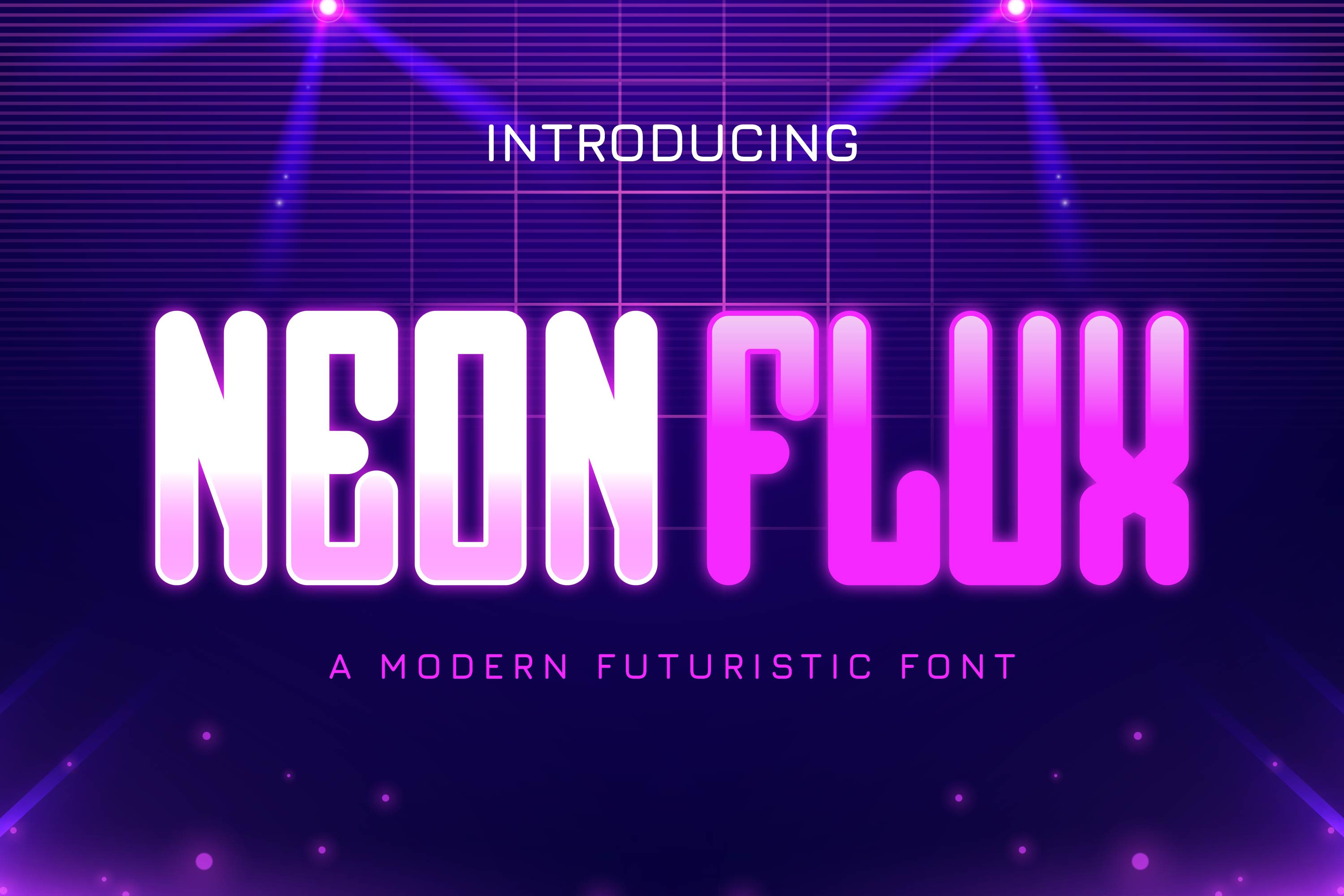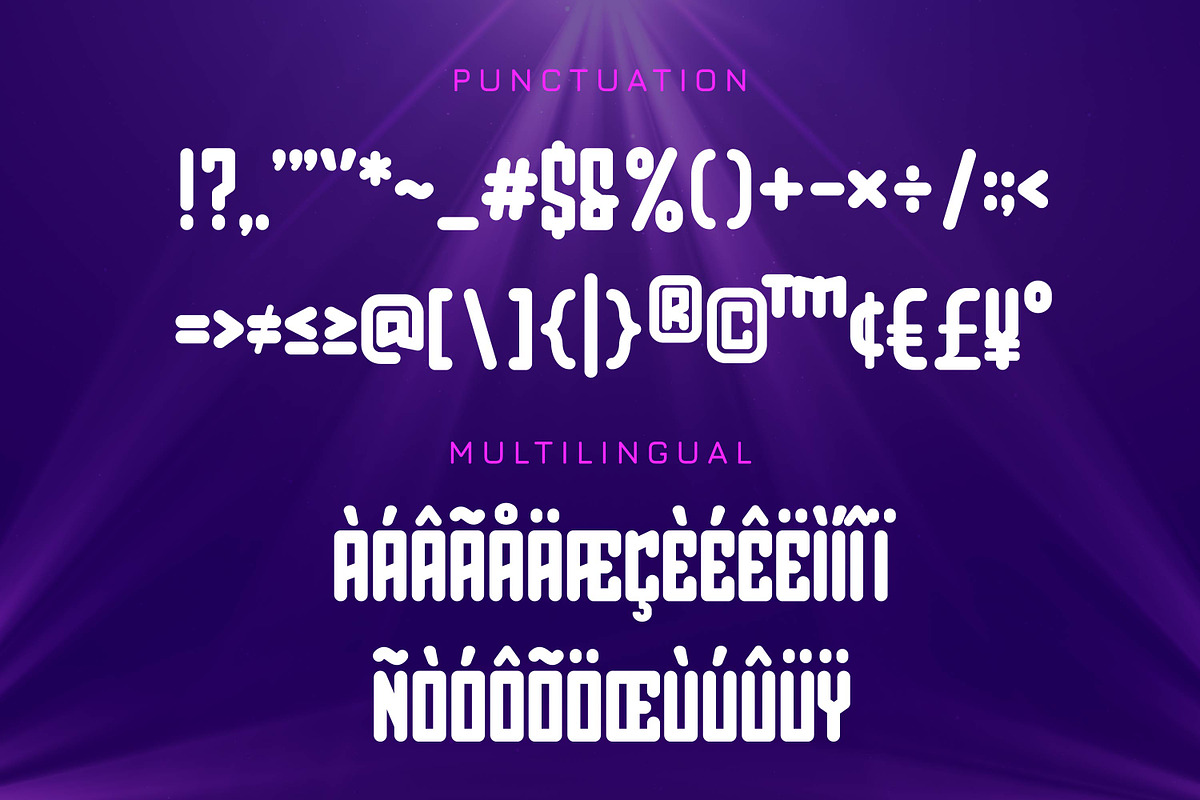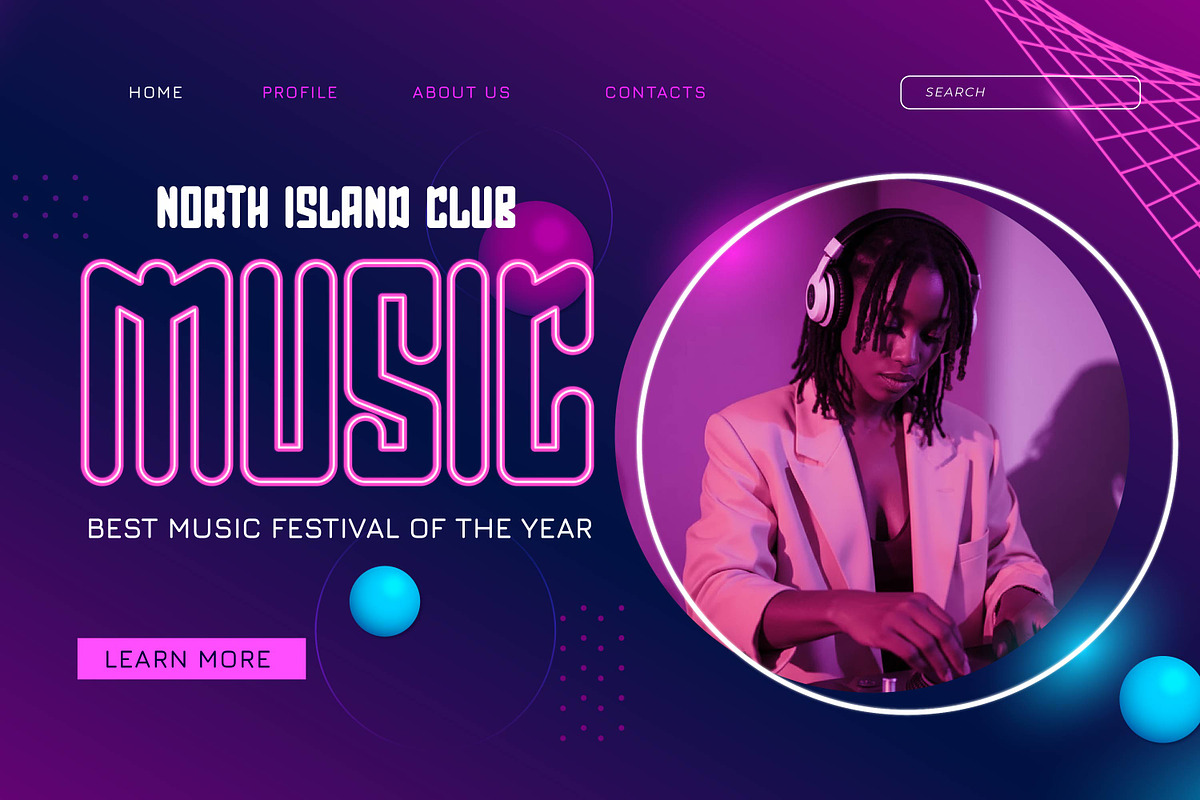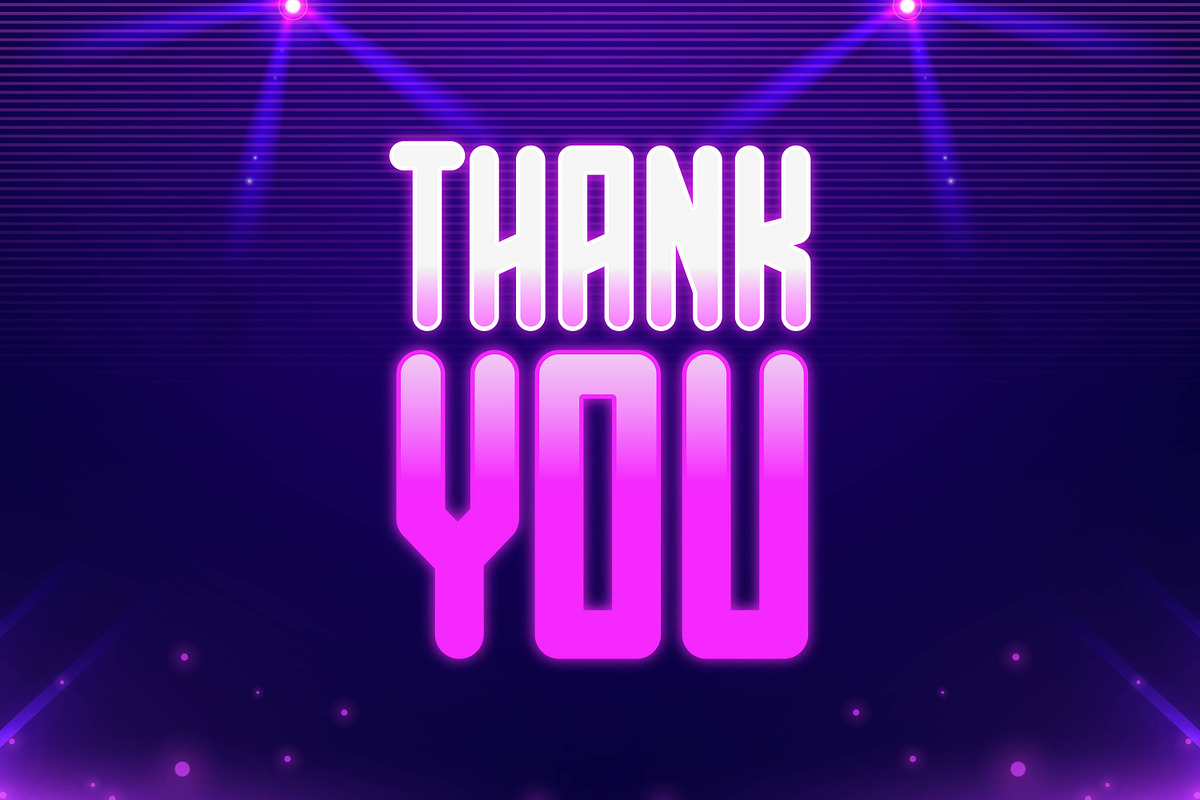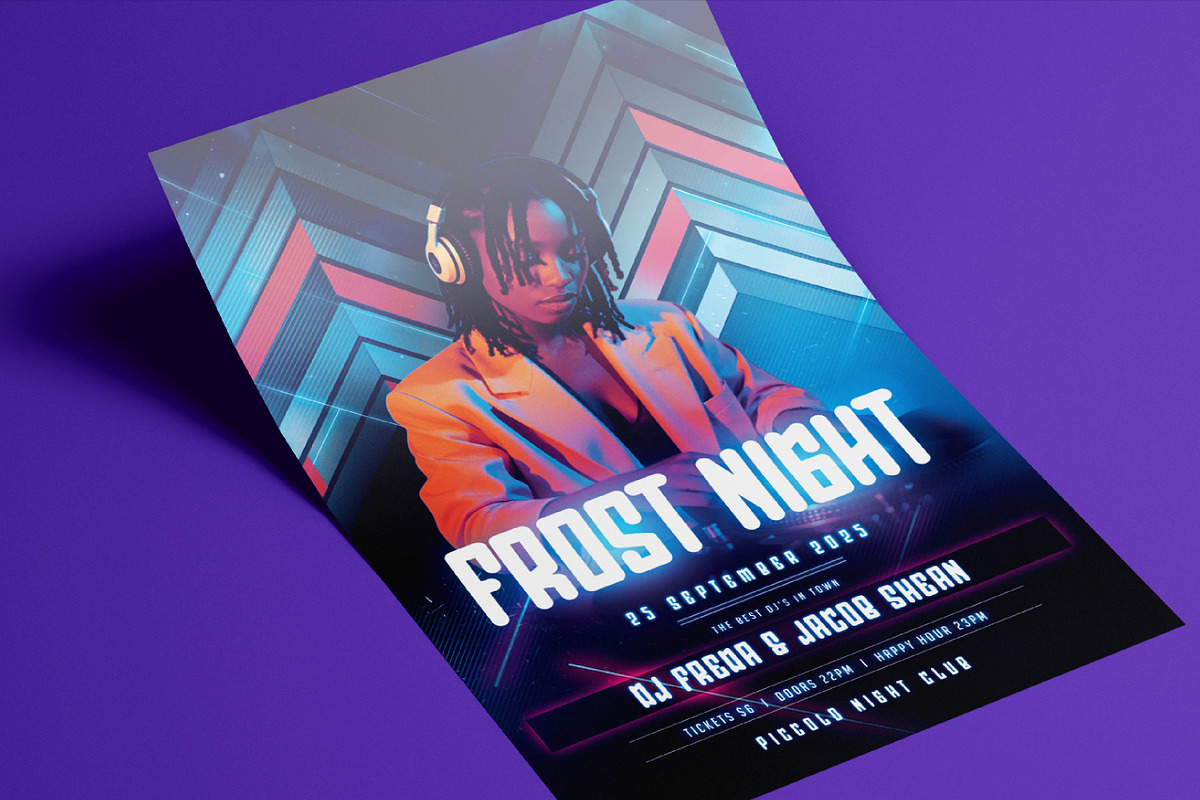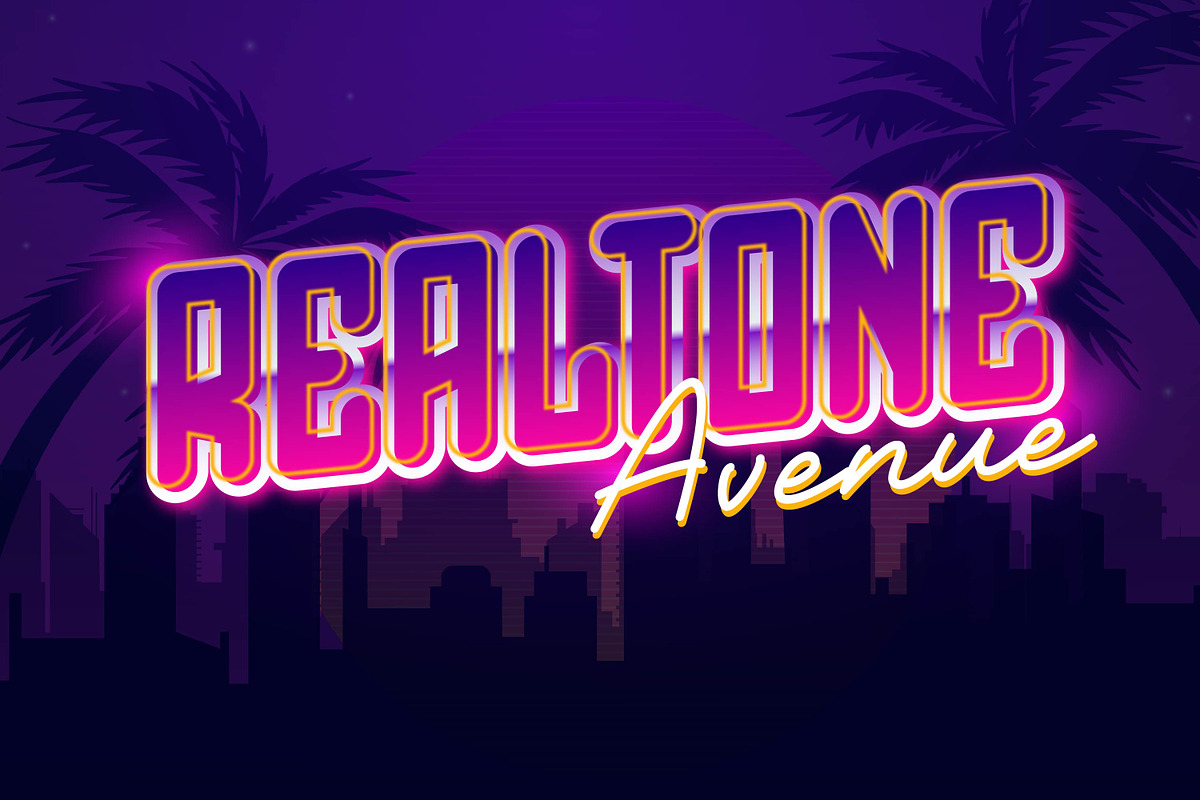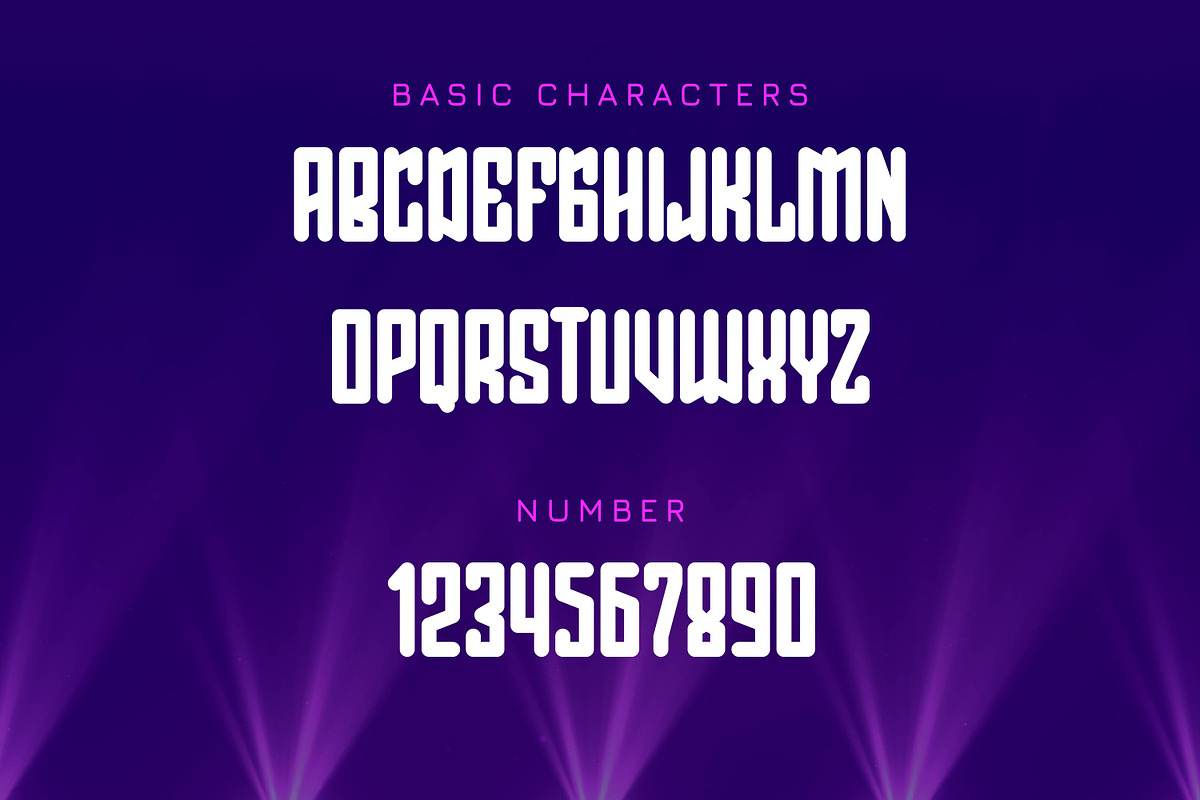
Neon Flux - Modern Futuristic Font
Neon Flux is a modern futuristic font that glows with digital energy. Inspired by neon lights and sci-fi aesthetics, it’s perfect for tech branding, cyberpunk posters, gaming titles, or any design that needs a sleek, modern, and electrifying look.